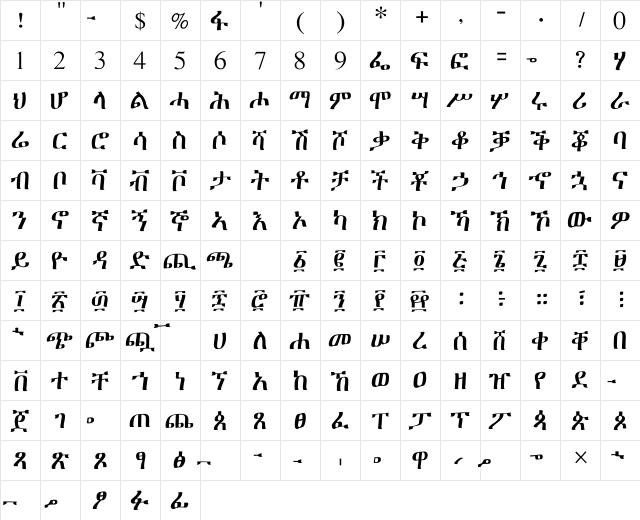
GeezTimesNew ntsNew
Design Context for GeezTimesNew Typeface
GeezTimesNew offers clean, dependable letterforms without strong stylistic allegiance, making it a practical choice for designers who need flexibility.